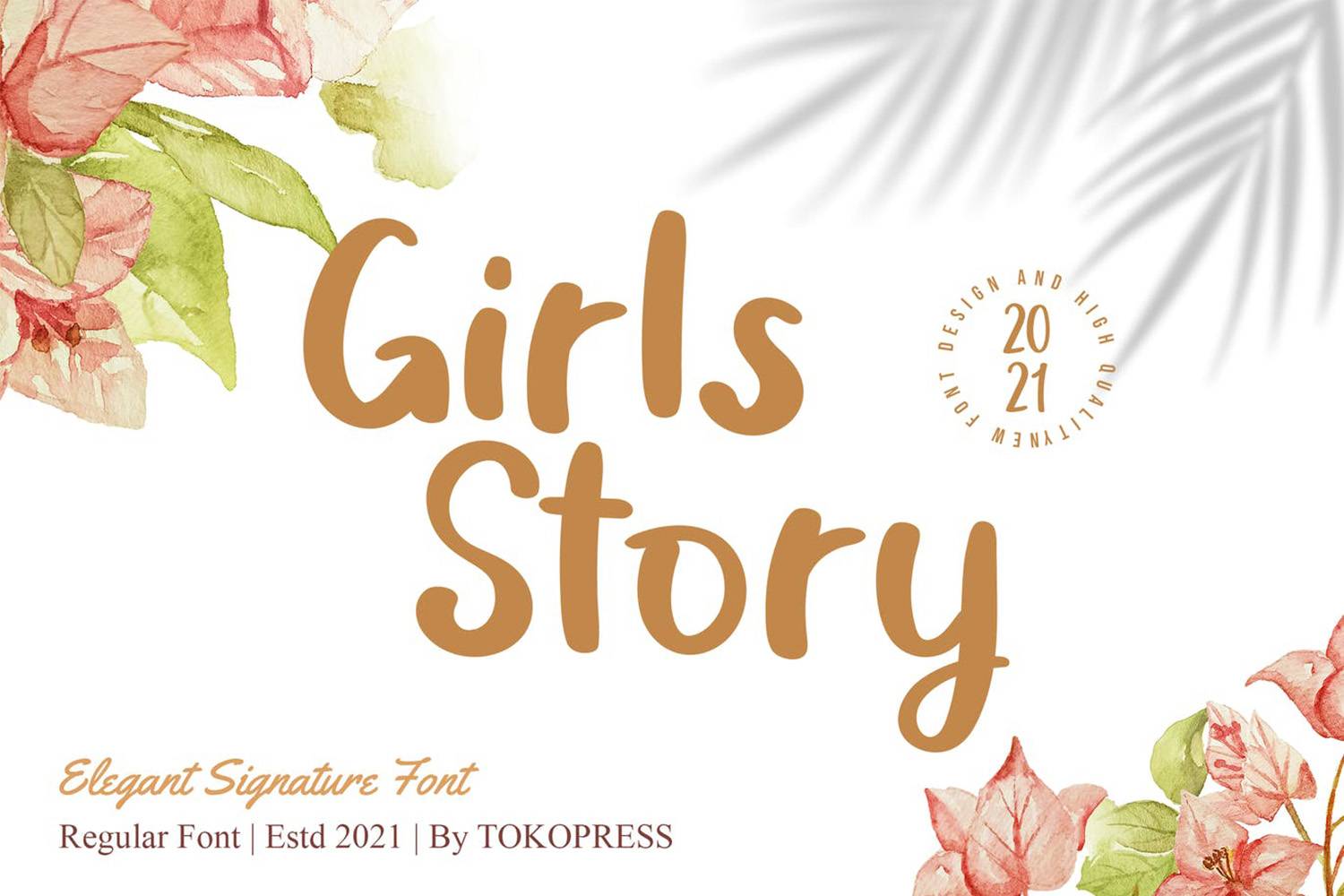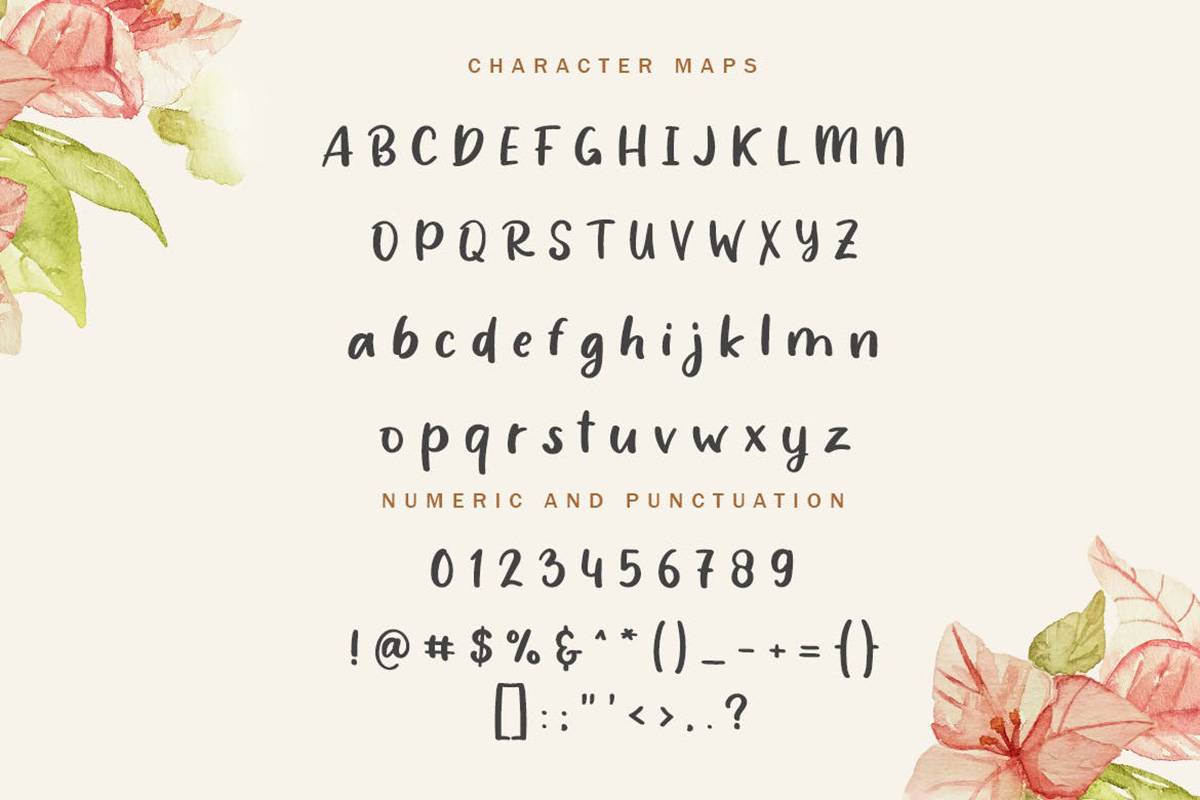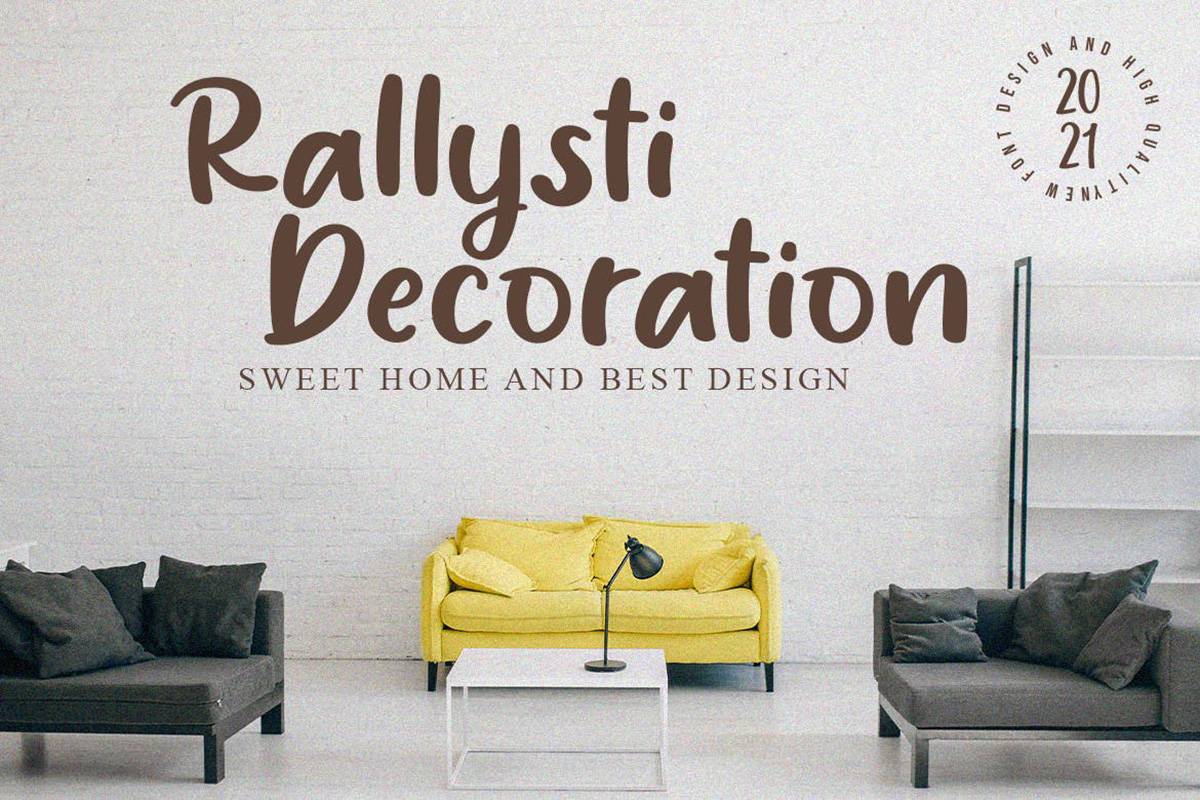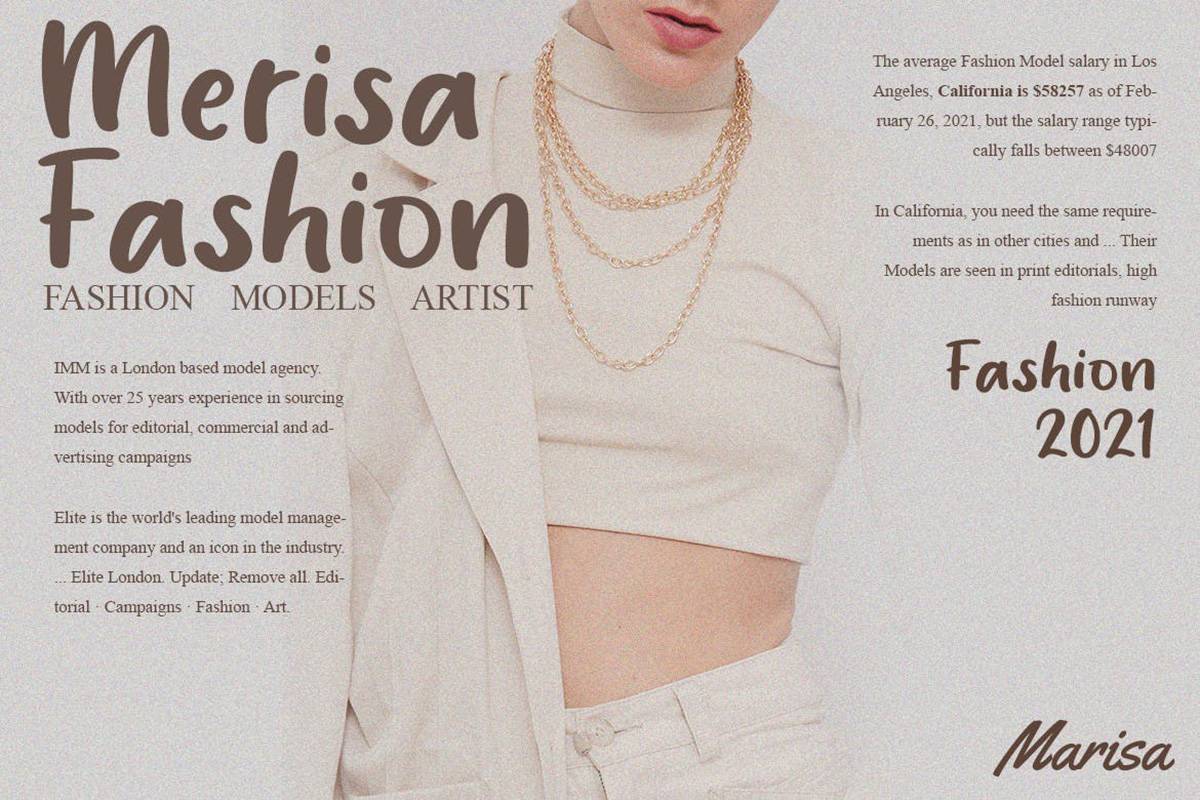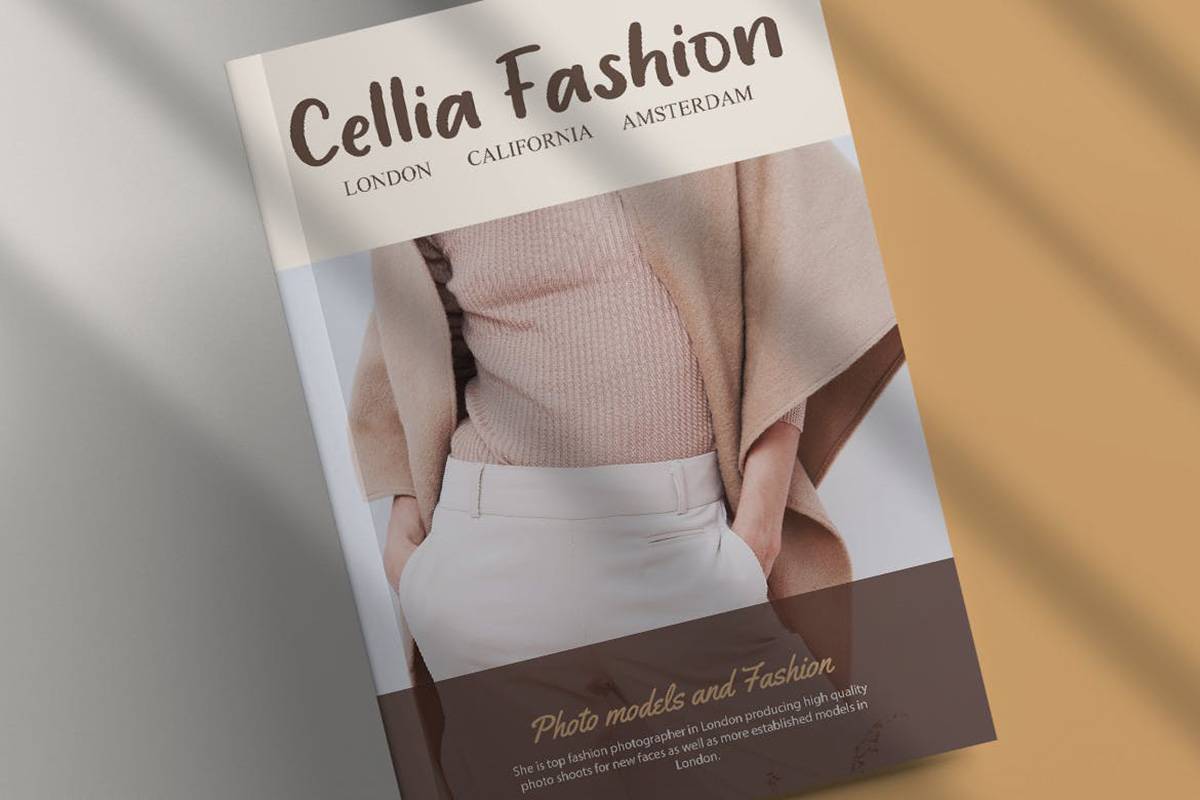
Girls Story is a playful and casual handwritten sans serif font with smooth, rounded strokes and a friendly, approachable feel. Its moderate weight and slightly tall x-height make it highly readable, while its charming irregularities and lively letterforms evoke creativity and warmth. Ideal for kids’ products, informal branding, and fun editorial projects, this font adds a personal, cheerful touch to any design.